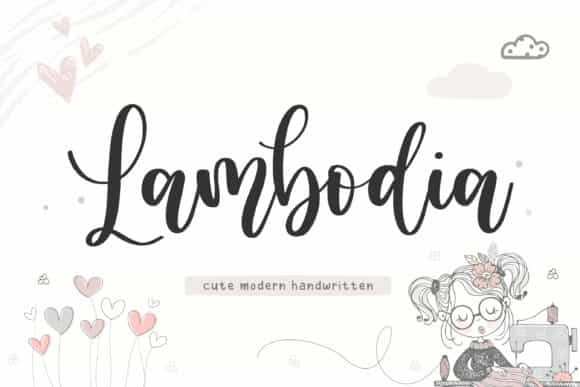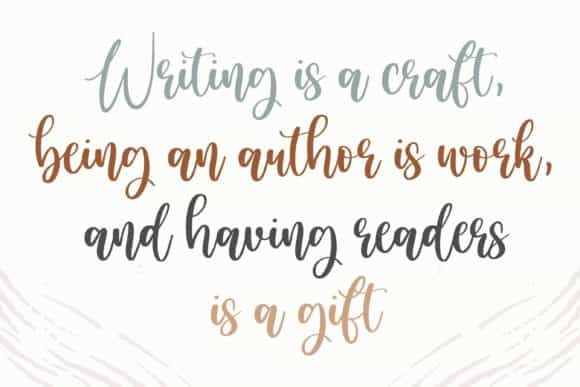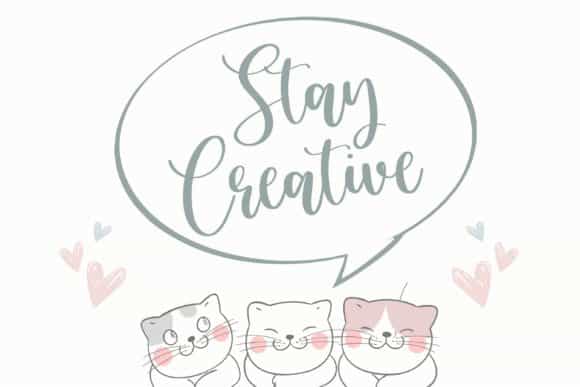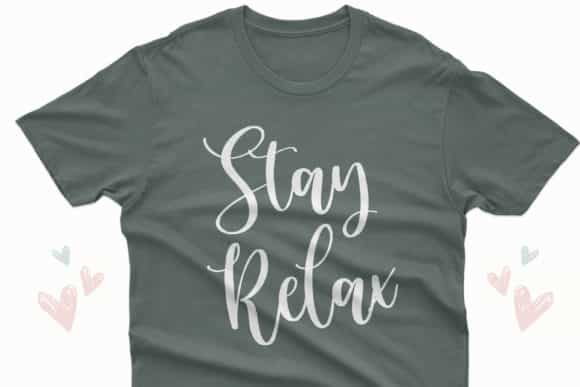
Lambodia is a script font that exudes a blend of sweetness, modernity and elegance. With its style it’s ideal, for various design purposes like branding and digital projects.